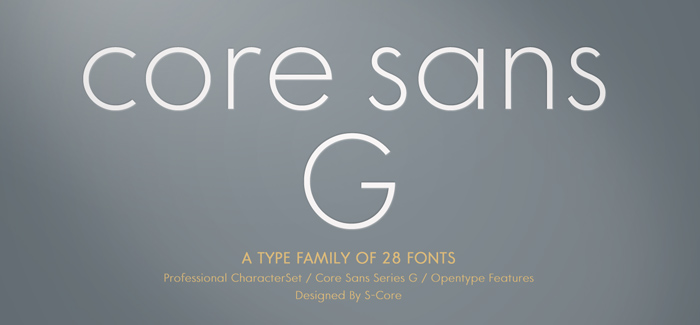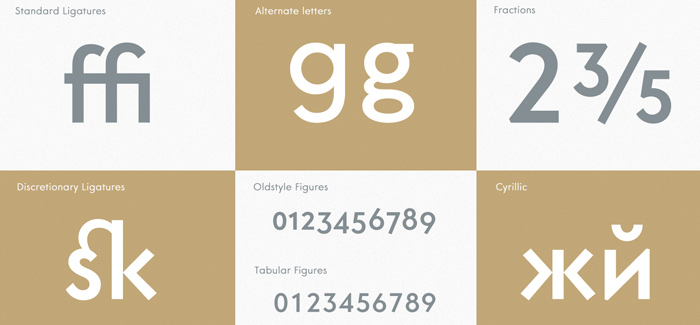
Core Sans G Family
The Core Sans G Family designed by Hyun-Seung Lee, Dae-Hoon Hahm and Min-Joo Ham is a part of the Core Sans Series, such as Core Sans NR family and Core Sans M family.
Core Sans G is constructed of straight, circular or square shapes. These geometric shapes are inspired by classic geometric sans (Futura, Avenir, Avant Garde etc.). Every stem is a rectangle or a straight line and every letter, lowercase or uppercase, seems to be in perfect geometric form and even weighted. The small x-height makes readability clean and clear. Core Sans G can be used equally well in headings or in body copy.
The Core Sans G Family consists of 9 weights (Thin, Extra Light, Light, Regular, Medium, Bold, Extra Bold, Heavy, Black), 3 for rounded (Medium, Bold, Extra Bold) with maching Italics. It also included 4 effects fonts (Outline, Neon, Shadow, Dimensional), Alternate Characters (a, g, t) and a buch of ligatures.
The Core Sans G provides a wide range of character sets to support (Cyrillic, Central and Eastern European characters) and advanced typographical support with features such as proportional Figures, tabular Figures, numerators, denominators, superscript, scientific Inferiors, subscript, fractions, standard ligatures, discretionary ligatures and stylistic alternates. Core Sans G is an ideal font family for use in magazines, web pages, screens, displays, and so on.
Designers: Hyun-Seung Lee, Dae-Hoon Hahm, Min-Joo Ham